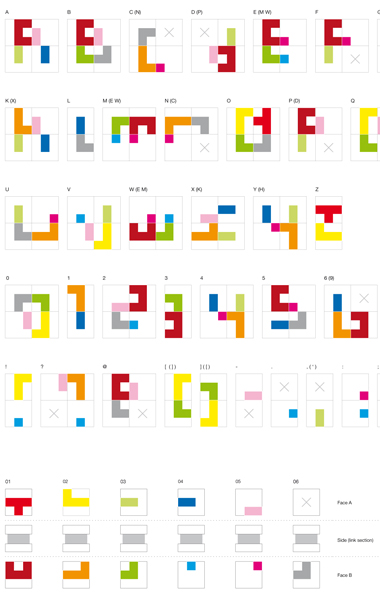
Every type of this pixel font is obtained by the combination of 6 bi-face rubber stamps in group of 4 or 2. In other terms, the entire font is drawed combining the same 12 graphic elements build from a basic unit (the square) and multiple of this unit (rectangles).
completely agreed. this seemed to be an all "natular" design process just as i love it. i tought about posting photos of real drawings and scribbles i did on math-paper(?) before i realized them. good good work.
the knowledge that your font is made of 12 constant pieces and that it's mad originally with a "variable" stamp of 4 squares makes it like a 100 times more incredible.
Happy that my idea is shared and understood.
Here an other picture of the 6 rubber stamps I made and later a picture that explain better the elements combination.